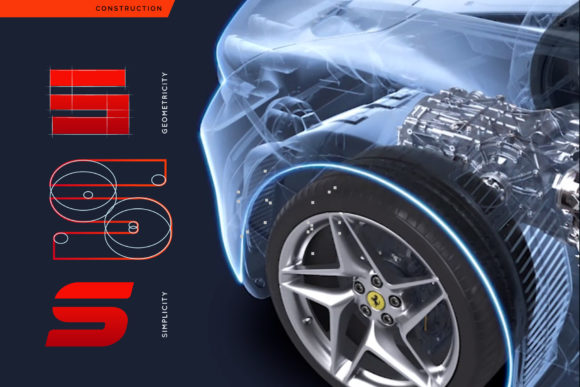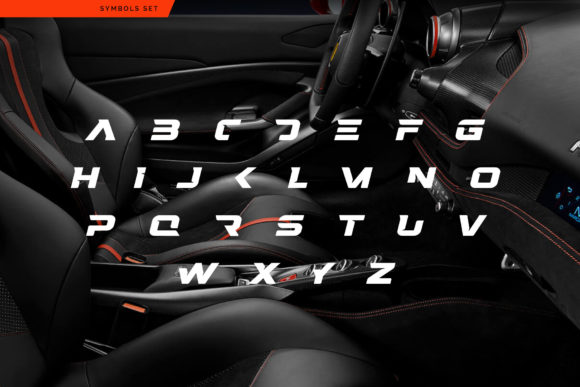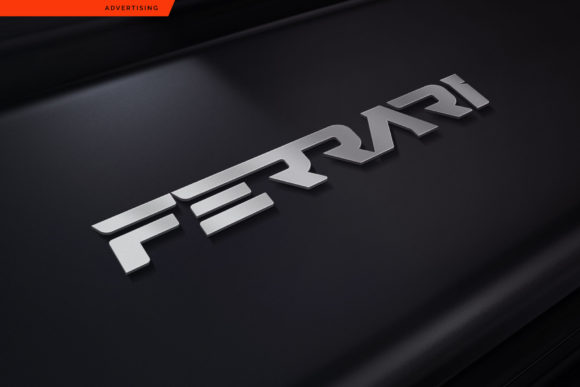
Introduction to Rocket Font
Have you ever found yourself staring at a blank canvas, waiting for the perfect font to bring your creative project to life? That’s exactly what happened to me last week while working on a space-themed campaign for a client. I was searching for a font that would capture the essence of speed, innovation, and futuristic style, and that’s when I stumbled upon the Rocket Font.
This incredible font is not just a design resource, but a game-changer for designers looking to add a touch of dynamism and high-quality aesthetic to their work. With its clean and decisive lines, Rocket Font is the perfect choice for creating attention-grabbing headlines, logos, and titles that exude confidence and sophistication.
Key Features of Rocket Font
- High-quality design: The Rocket Font is designed with high-quality graphics, making it perfect for use in various design projects.
- High-resolution design: The Rocket Font is designed with high resolution, ensuring that it looks great on various devices and screens.
- Perfect for creative projects: The Rocket Font is ideal for use in creative projects such as graphic design, digital art, and typography, making it a valuable design resource.
Honest Review: Rocket Font
I recently had the chance to try out the Rocket Font and I must say it’s an interesting addition to my design resources. The font has a unique, retro-futuristic vibe that would be perfect for a creative project with a sci-fi or space theme.
Here are some things that work well with the Rocket Font:
- ✨ High-quality design: The font is well-crafted and looks great at various sizes.
- ⚠️ Limited character set: The font only includes a limited character set, which may not be suitable for longer texts.
- ⚠️ Not suitable for body text: The font’s unique style may not be suitable for large blocks of body text.
Overall, I think the Rocket Font is a great design resource for specific projects, but it may not be the best choice for every design task. I would recommend it for creative projects with a retro-futuristic theme, and I would love to see the designer expand the character set in future updates.
Rocket Font is ideal for various design projects, including:
- Infographics
- Business cards
- Posters